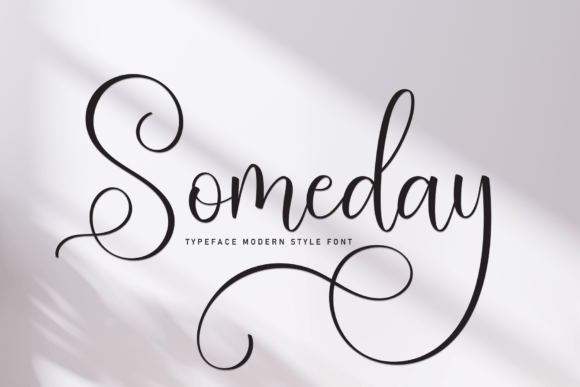
Welcome to the world of Someday Font, a script font family that will sweep you off your feet. Picture this: a collection of characters that dance along the baseline, creating an enchanting harmony of romance and sweetness. Someday Font was lovingly crafted by andikastudio, and it's ready to take your creative projects to breathtaking heights.
With its casual yet elegant touch, Someday Font is a breath of fresh air in the world of typography. It's perfect for those who seek a font that exudes personality and charm. Its flowing lines and delicate curves will add a touch of magic to your designs, whether you're creating wedding invitations, logos, social media posts, or any other project that demands a touch of romance.
Step into a world where words come alive, where letters intertwine like whispers of love. Someday Font is not just a font; it's an experience that will transport you to a realm of beauty and creativity. Its soft edges and whimsical charm will captivate your audience, leaving them spellbound by the sheer elegance of your designs.
Unlock the endless possibilities of Someday Font today. Let your imagination soar as you explore the world of calligraphy, where every letter tells a story and every word paints a picture. With Someday Font, your creative potential knows no bounds. Dive in and discover the magic that awaits you.